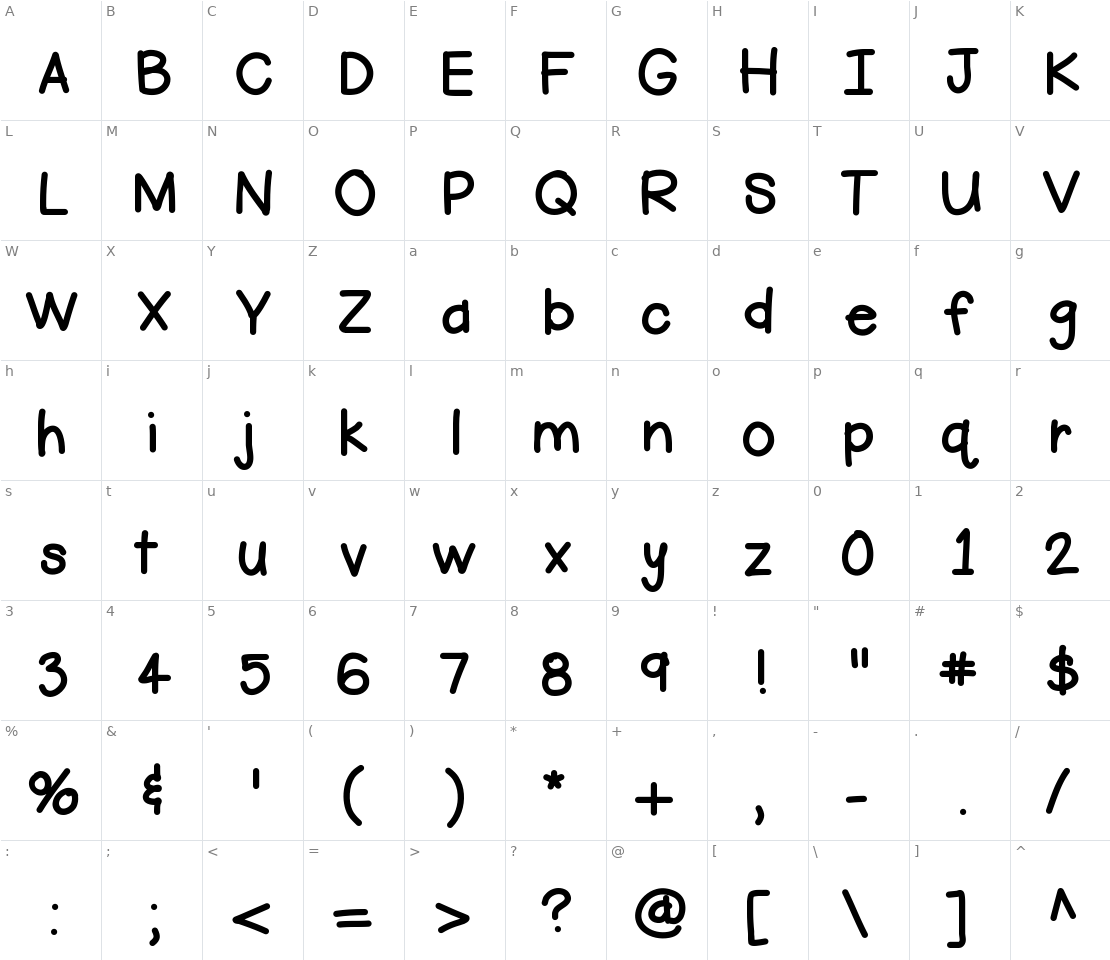
Hello Firstie
Hello Firstie is a rounded, bold handwritten face by Jen Jones that captures the careful but wobbly lettering of a kid just learning to write. The strokes are thick and friendly, with enough bounce and irregularity to feel authentic rather than overly styled. It's a natural pick for elementary school materials, children's books, and playful headlines where you want something that feels genuinely young and approachable.